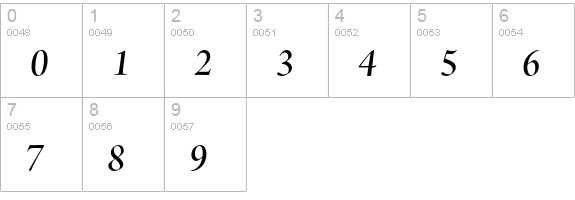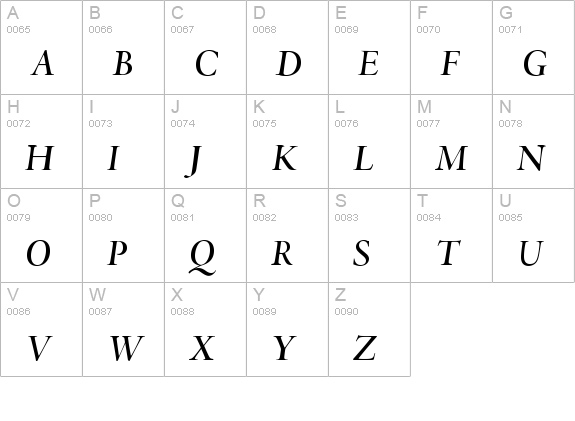
Adobe Jenson Pro Semibold Italic Display Font Details
Adobe Jenson Pro Semibold Italic Display is a sub-bold, structured, italic variant in the Adobe typeface family \xE2\x80\x94 well suited to sub-headlines and emphasised passages.
Adobe Jenson Pro Semibold Italic Display font is a refined and elegant typeface that exudes sophistication and professionalism. With its precise curves and graceful letterforms, this font is perfect for conveying a sense of style and class in any project. The semibold weight adds a touch of boldness, while the italic styling brings a sense of dynamism and flair. This premium font is an essential tool for designers and creatives looking to elevate their work to the next level. Whether you're designing a sleek corporate identity, a high-end editorial layout, or a luxurious branding project, Adobe Jenson Pro Semibold Italic Display font will help you achieve a polished and sophisticated look. The best part? This exquisite font is available for free download at FontsMarket.com. Simply visit the website to access this top-tier typeface and take your designs to new heights. Don't miss out on the opportunity to add Adobe Jenson Pro Semibold Italic Display font to your font library today!